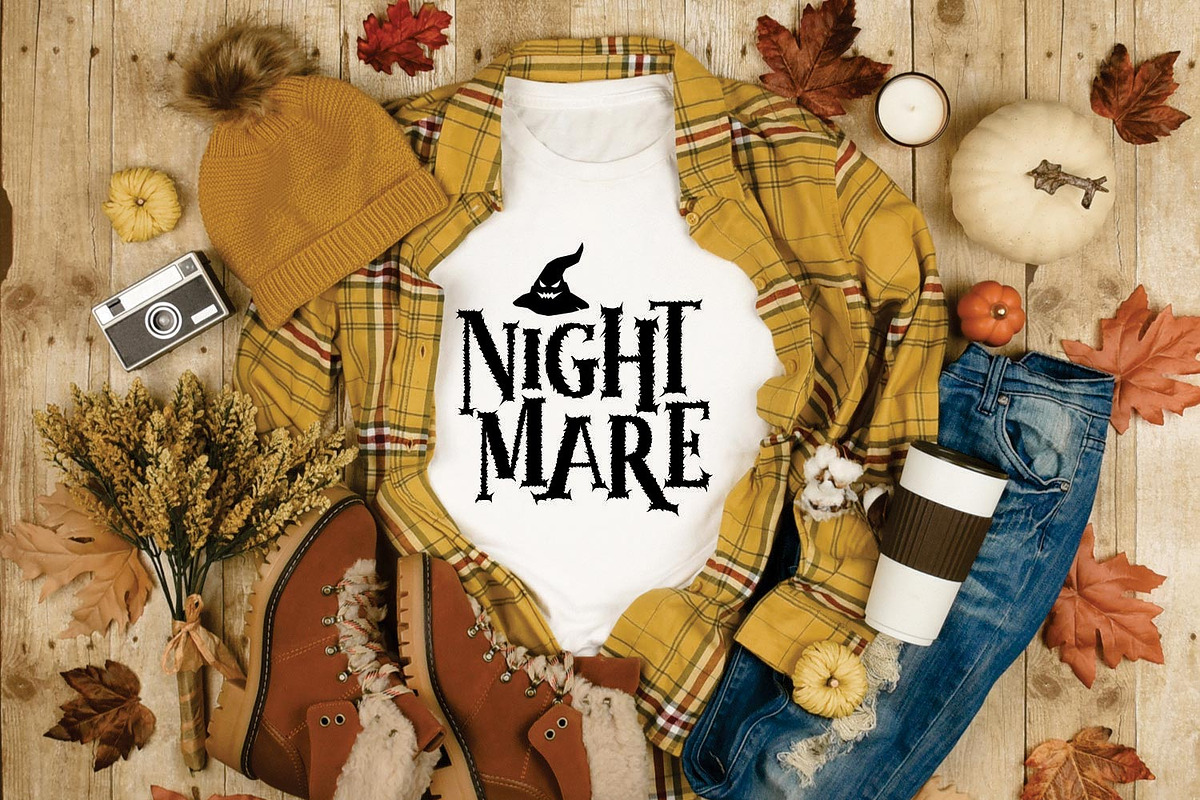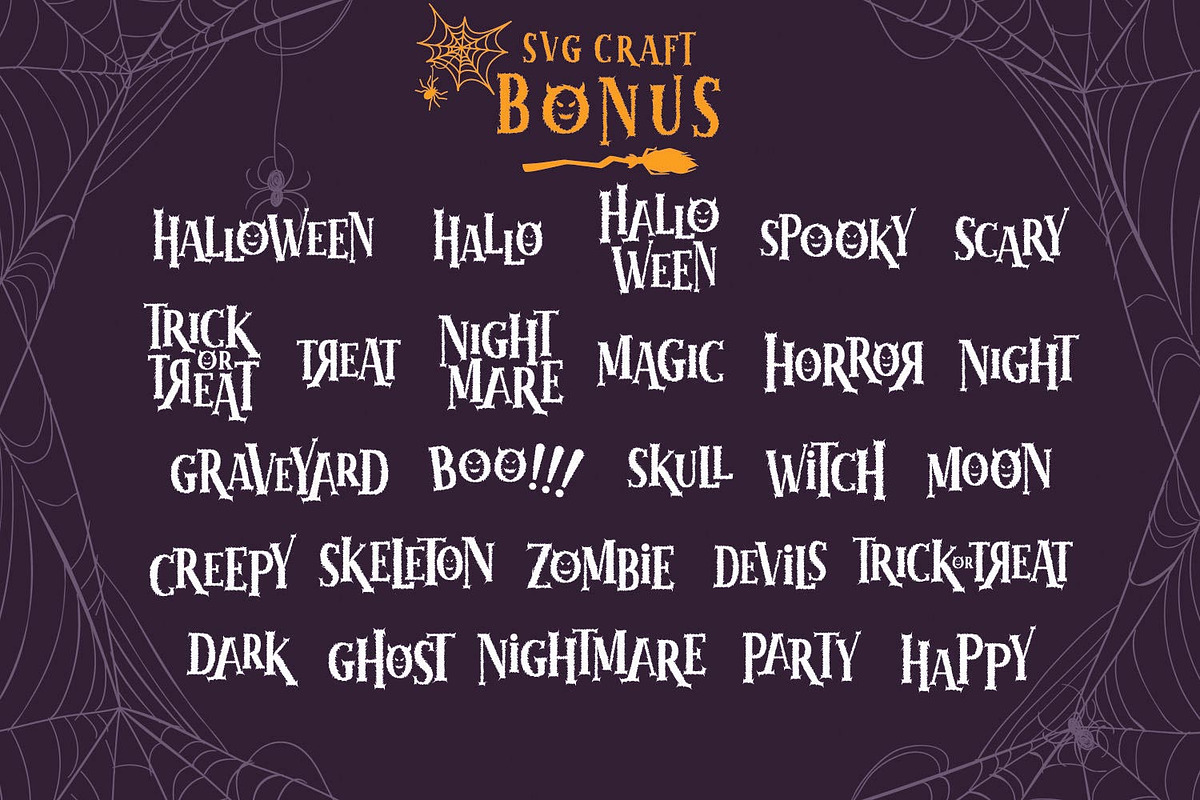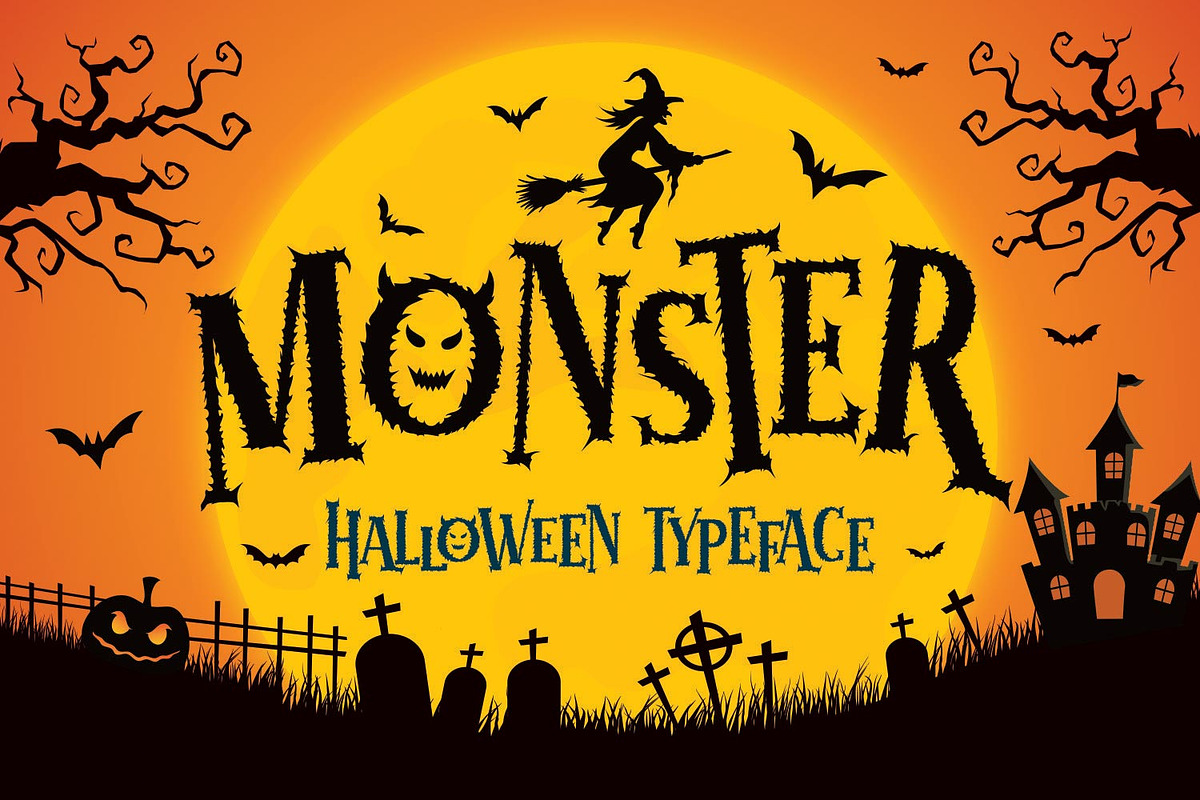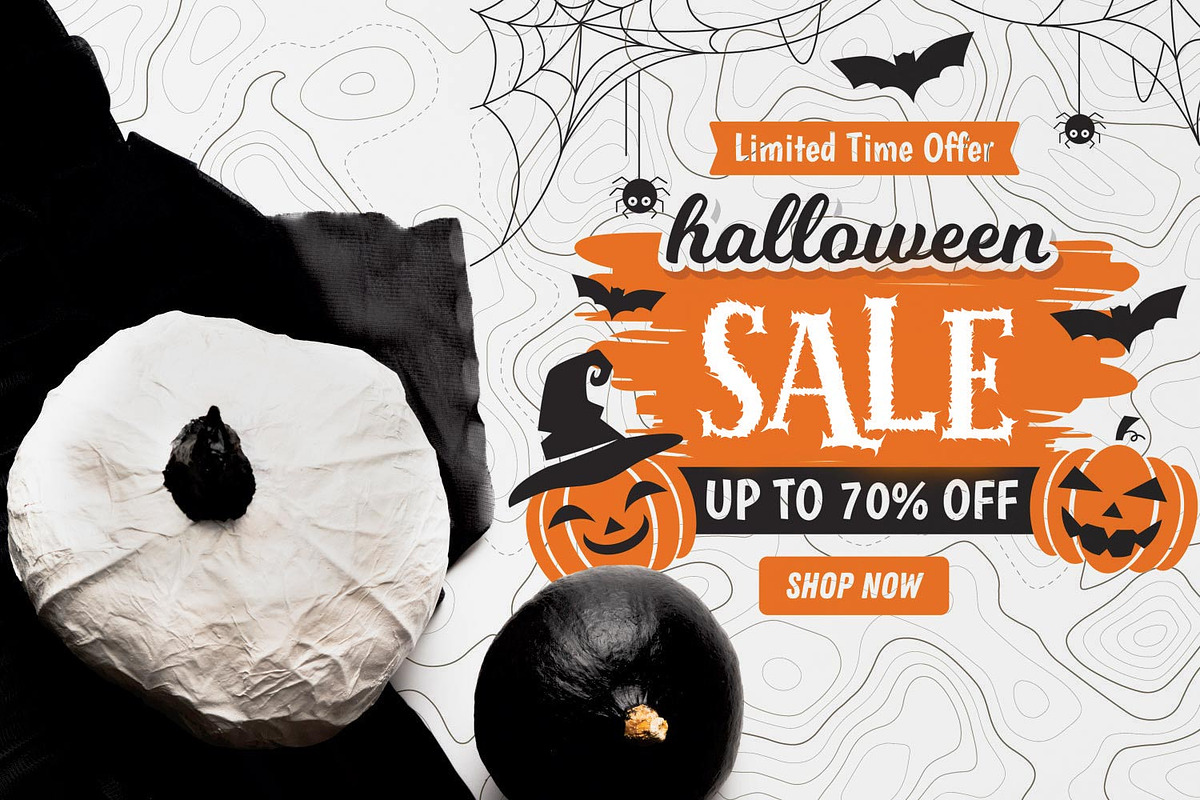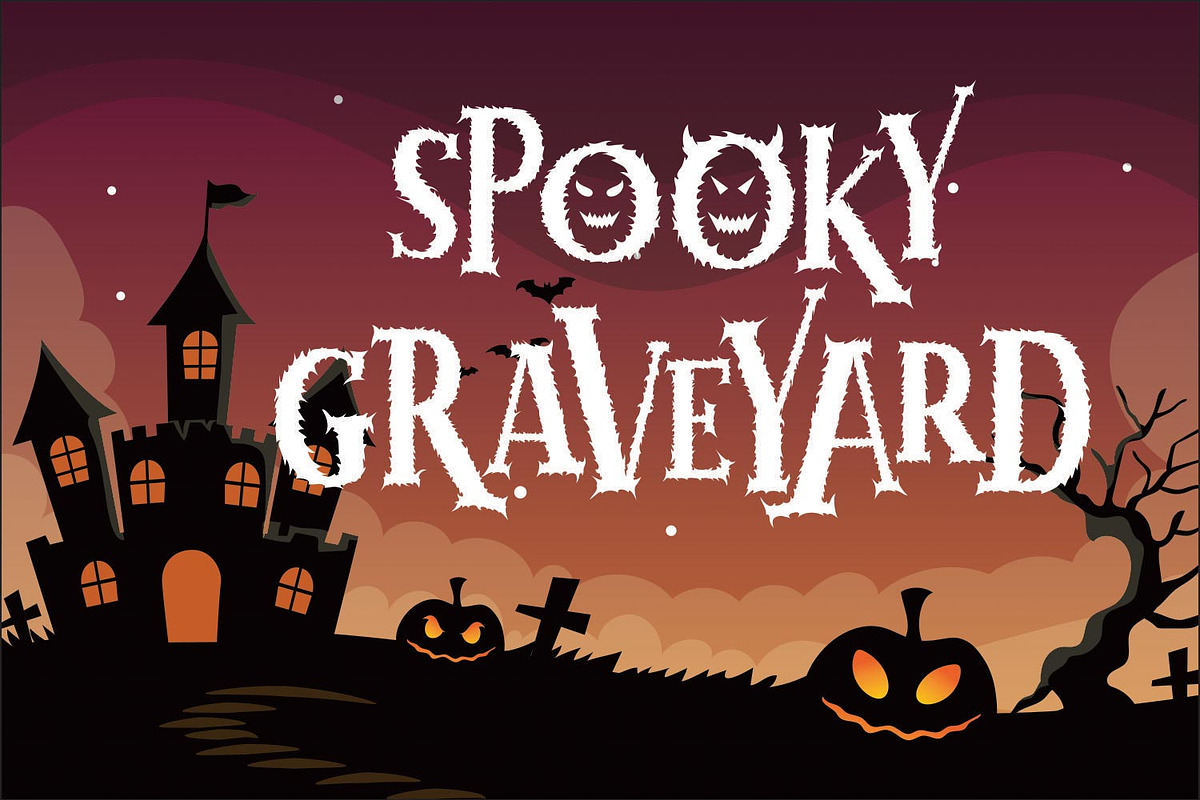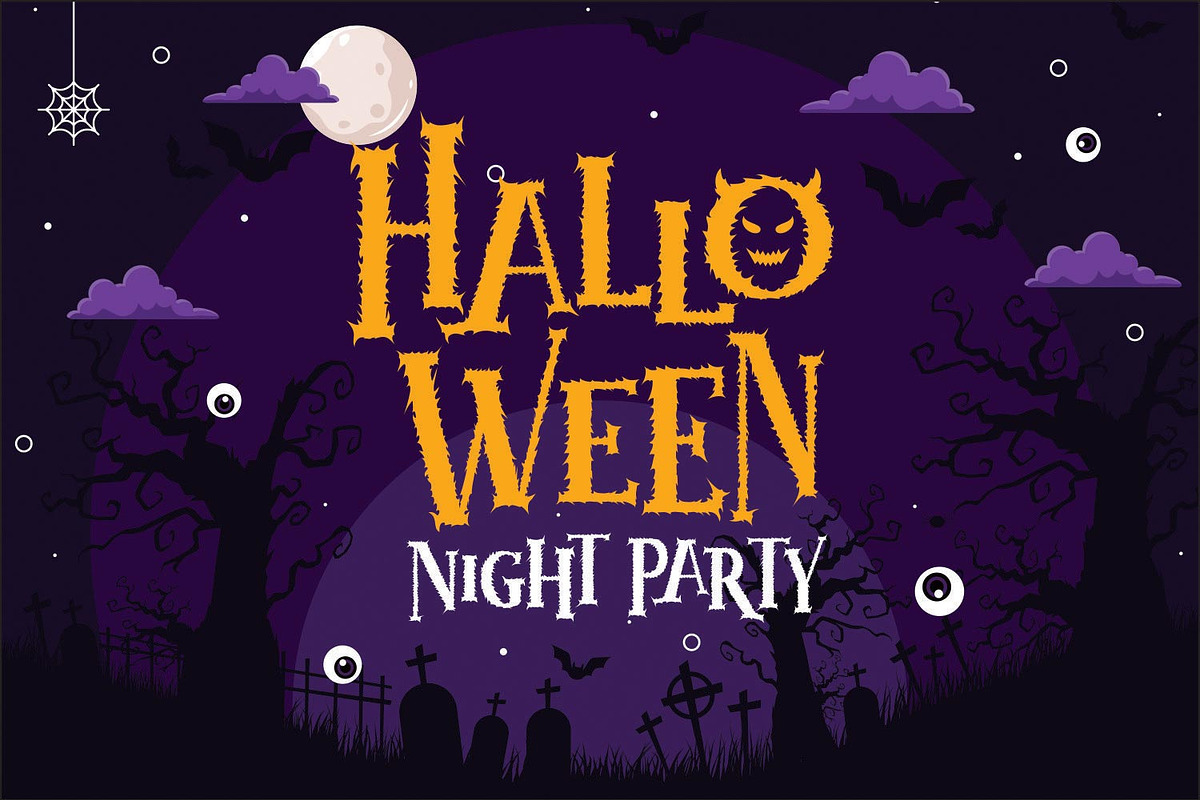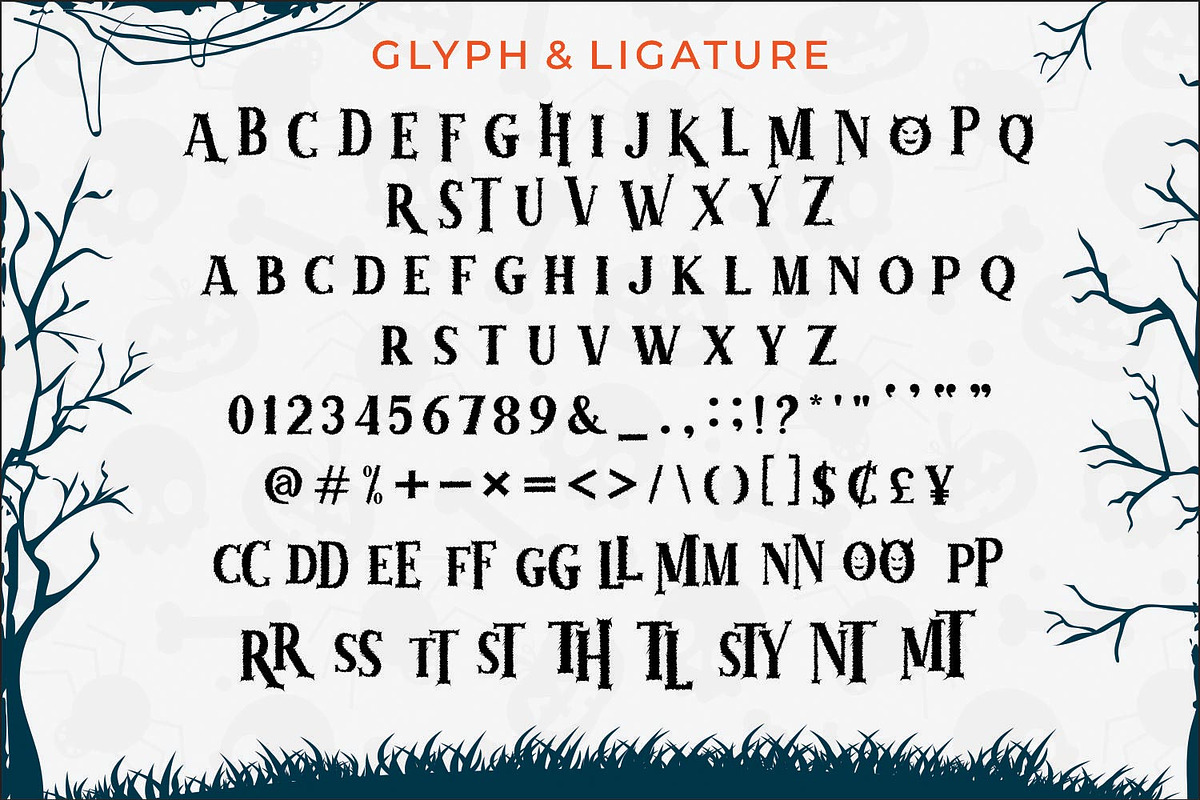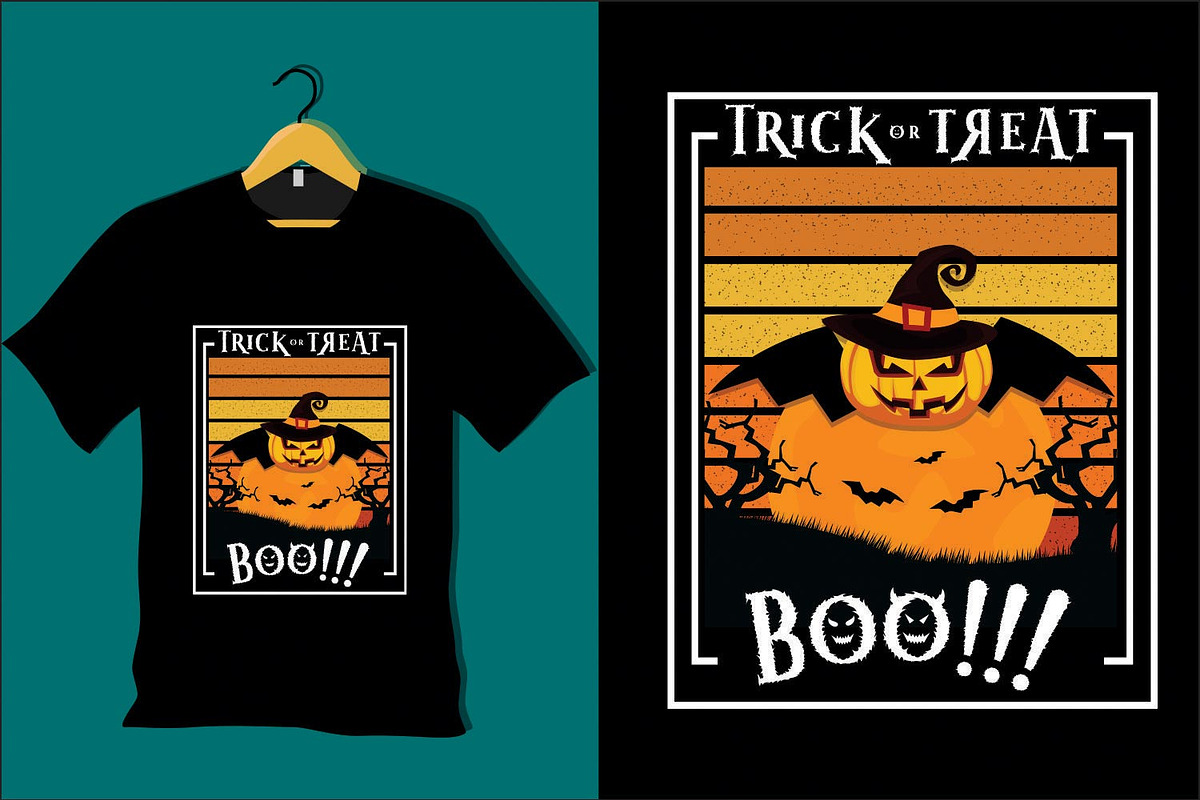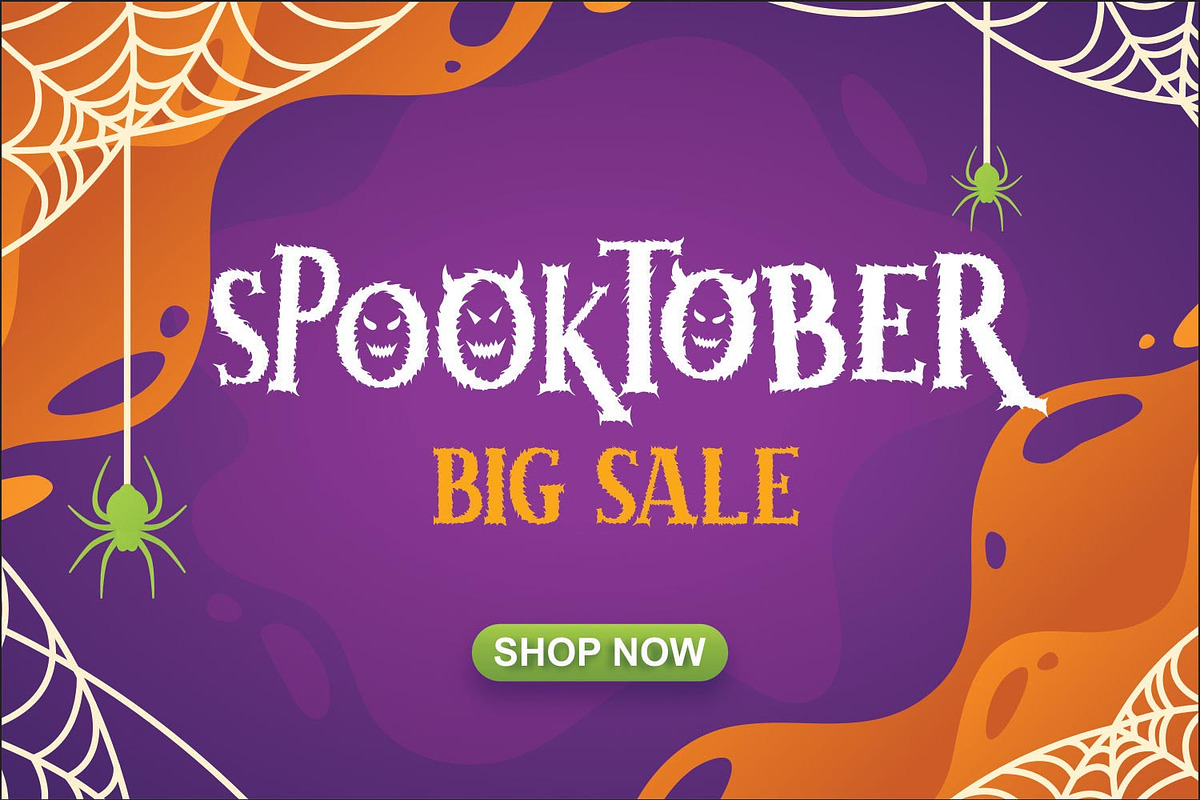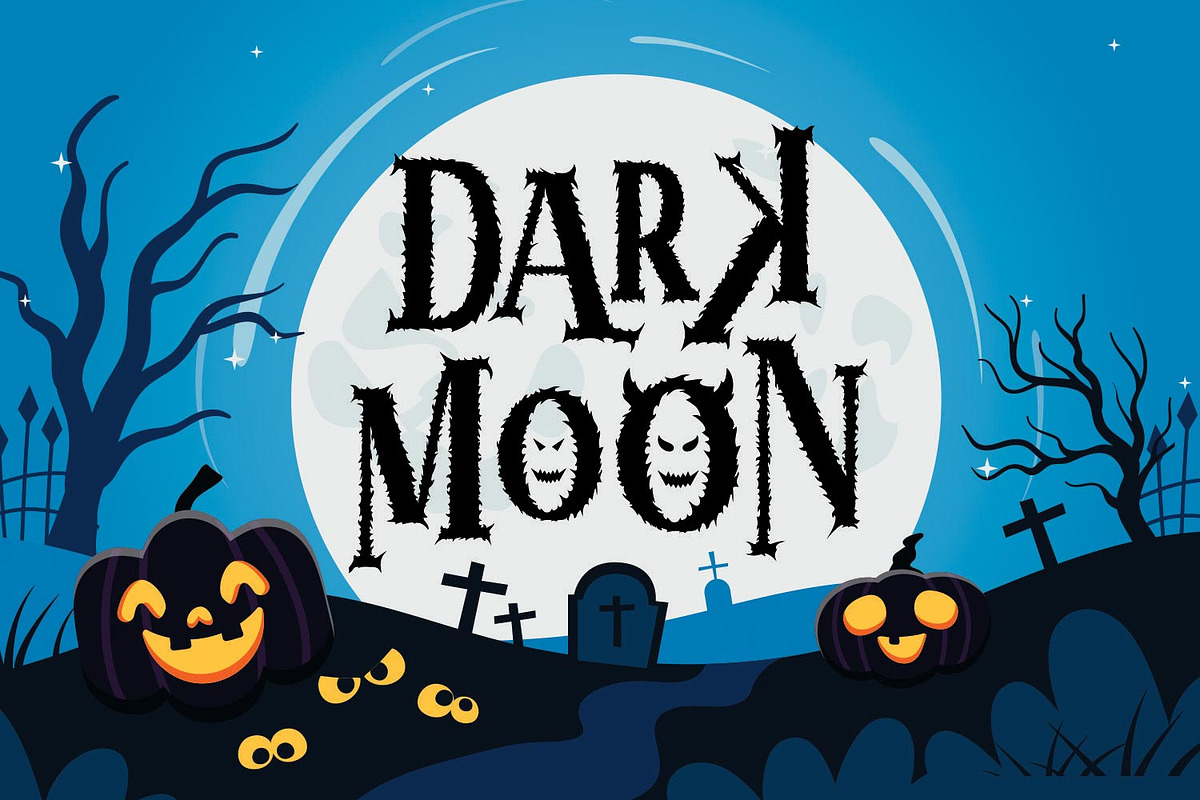
Monster Halloween
Monster is a Halloween typeface with SVG. It is a spooky display typeface with a scary horror theme.
This typeface includes vector elements for crafting. This enchanting font will turn any creative idea into a true standout. Get creative with its unique look, and use it to brighten up your Halloween projects!
Masterfully designed to become a true favorite, this font has the potential to bring each of your creative ideas to the highest level! Perfectly suited for future and science segmented magazines, posters, movie titles, music posters, youtube covers, youtube thumbnails, social media page covers, and so on. The limit is our imagination!